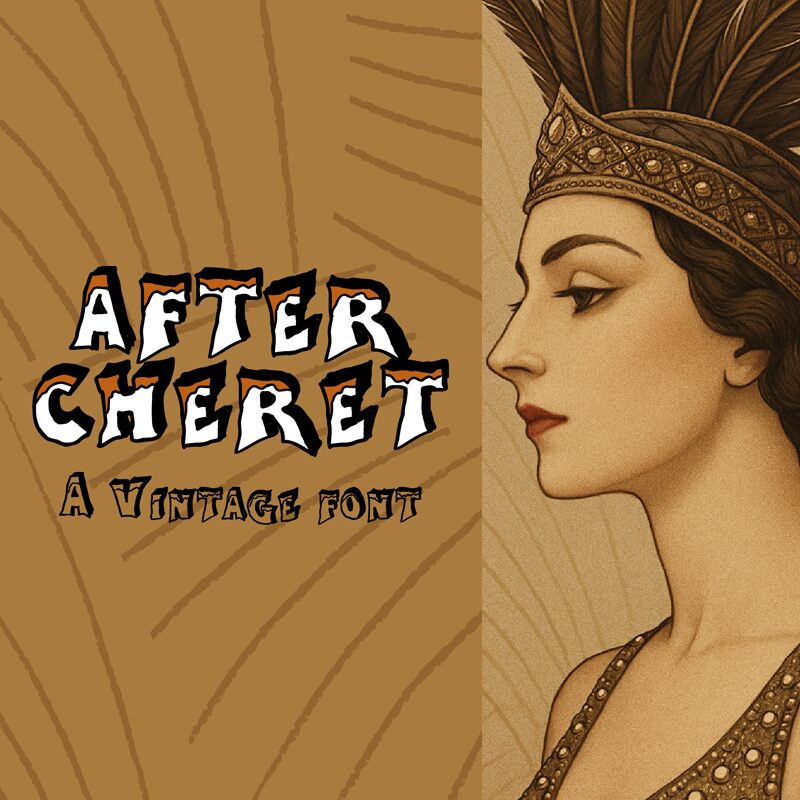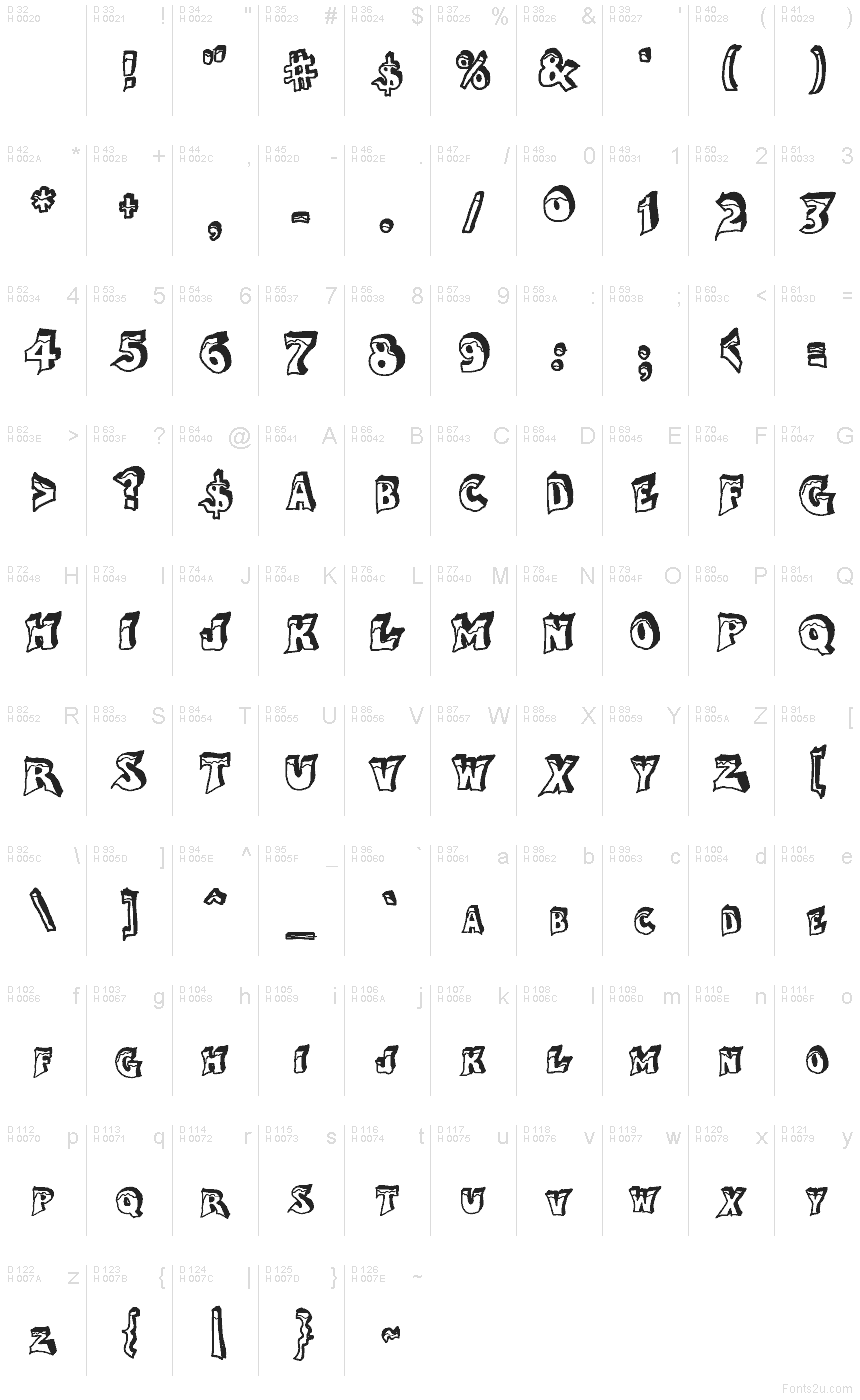
After Cheret font by Galdino Otten Fonts is an eclectic display font inspired by decorative type from the past. It features a bold artistic flair characterized by round cartoon-inspired typography. And it beautifully captures the theatrical essence of such a style, presenting it in a format that can easily go into any fun writing piece or design work.
After Cheret